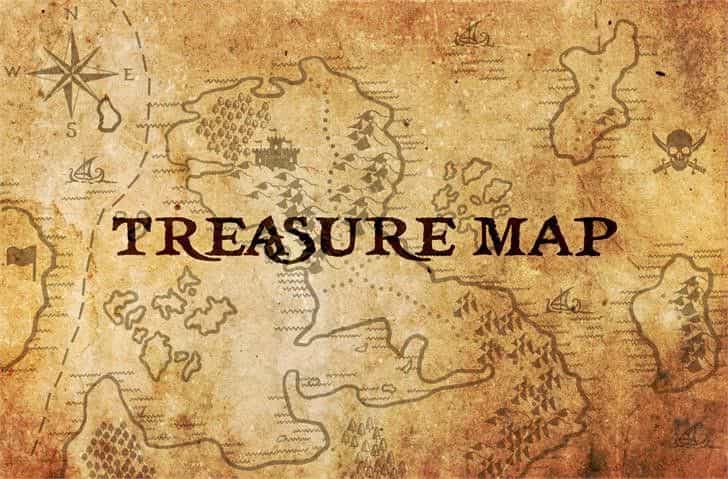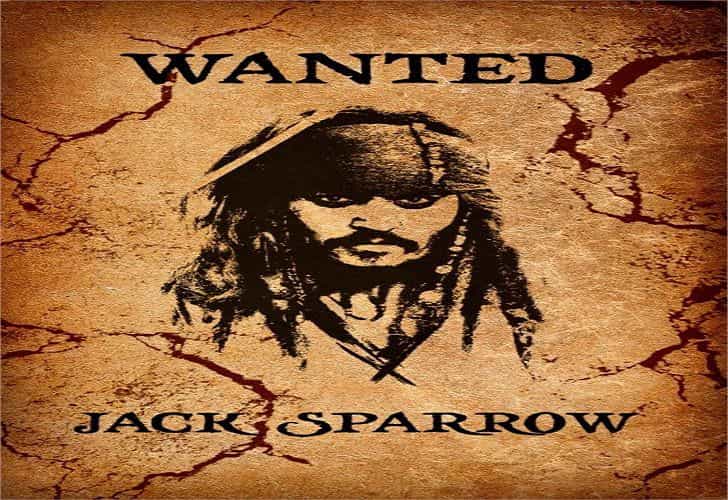
Treasure Map is a beautiful and elegant serif font, designed by JoannaVu and, and it is for free with a link to the author’s website for download. The free version contains all capital and small cases of alphabet and few symbols and signs.